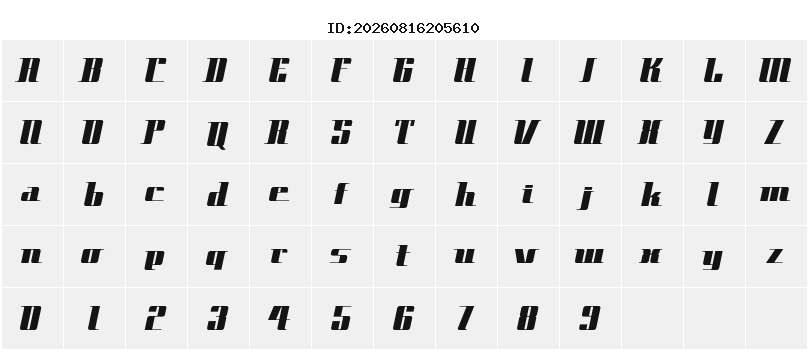
SpaceCadet Preview
• Font Name: SpaceCadet
• Full Font Name: SpaceCadet
About SpaceCadet.ttf
SpaceCadet.ttf is a modern, elegant sans-serif font designed for ultimate readability and visual harmony. Perfect for branding, headlines, web design, and print materials.